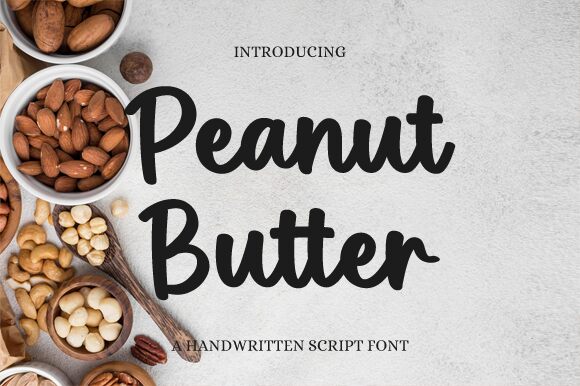
Peanut Butter
Peanut Butter, a creation by Graphix Line Studio, is a semi-bold handwritten font that exudes charm and personality. With its fluid, expressive strokes, it captures the essence of personal touch in every character, making it an excellent choice for designs that require a sense of warmth and authenticity. The semi-bold weight adds a layer of boldness to this font's casual elegance, ensuring legibility while maintaining its whimsical aesthetic.
The Peanut Butter font boasts versatility and can be seamlessly integrated into various creative projects such as invitations, greeting cards, brand identities or packaging where a handcrafted feel is desired. Its inviting curves and natural flow make it especially suited for projects that aim to convey friendliness and approachability.
Whether you're looking to add a human touch to digital designs or create standout printed materials, Peanut Butter offers an artful blend of the informal and impactful—perfect for designers who want their work to resonate with their audience on a more personal level.